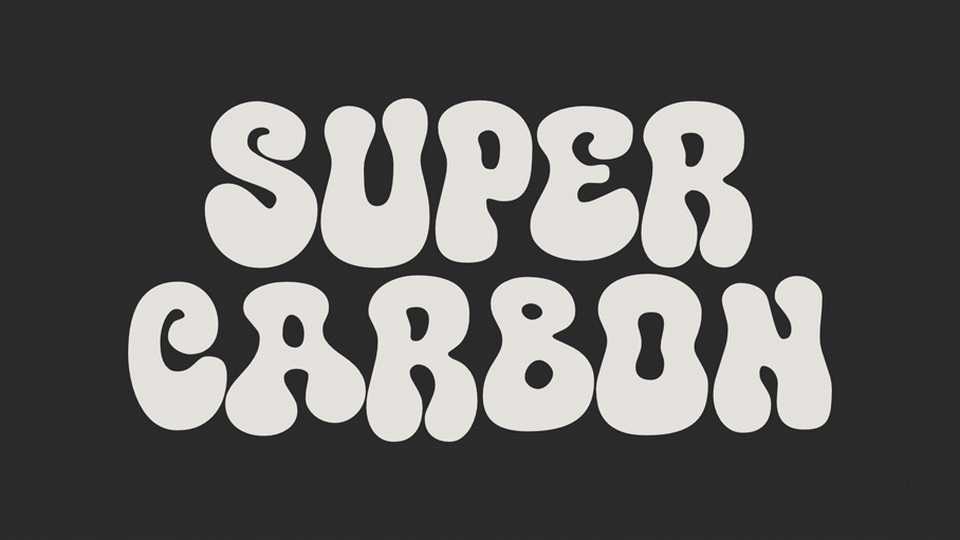
Download Super Carbon font, a hand-lettered typeface that’s a blast from the past with a modern twist. Each letter is a dance move on the typographic dance floor, exuding playful energy and funky vibes.